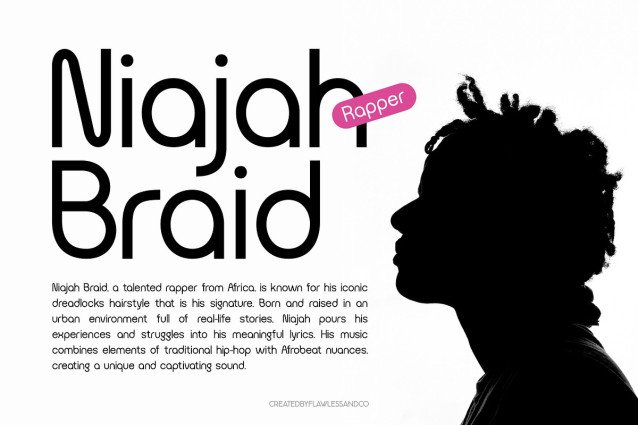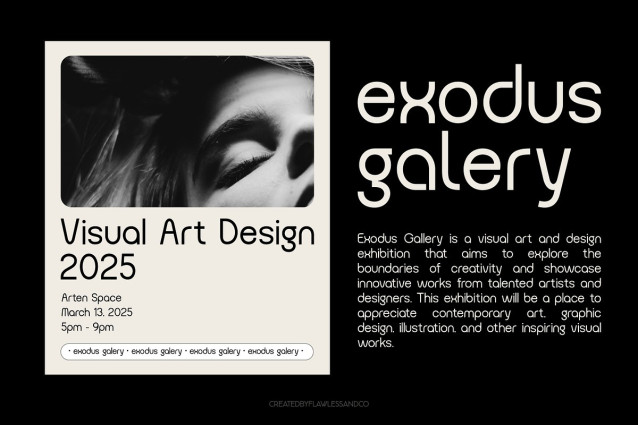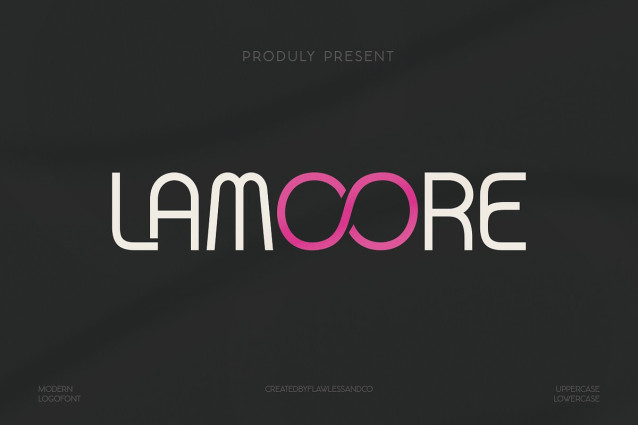
Lamoore Font
Lamoore Font is a clean and modern sans serif font designed to bring simplicity and sophistication to your projects. With its sleek letterforms and balanced proportions, this font is perfect for branding, logos, website headers, editorial layouts, and social media graphics. Its minimalistic style makes it versatile and easy to pair with other typefaces, making it a great choice for both professional and creative designs.